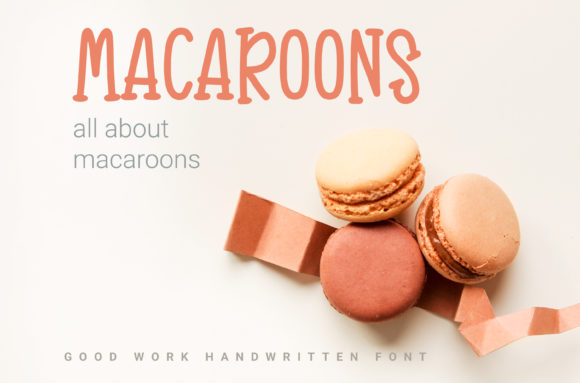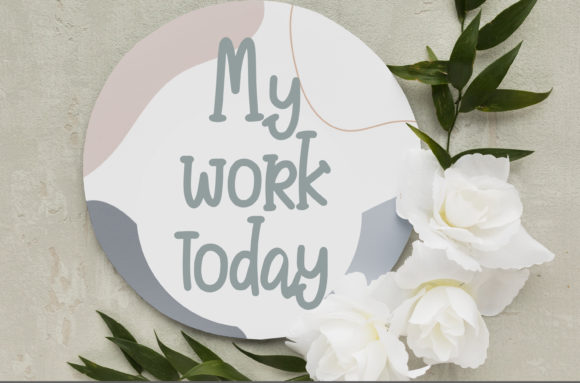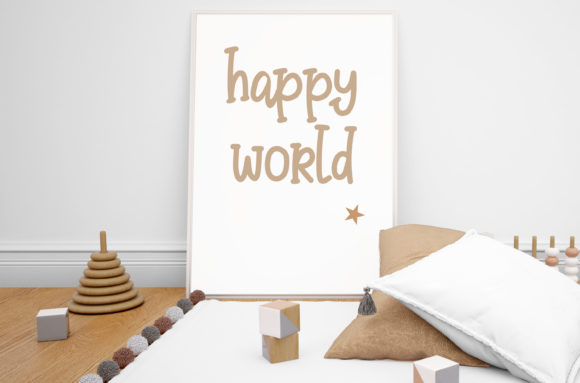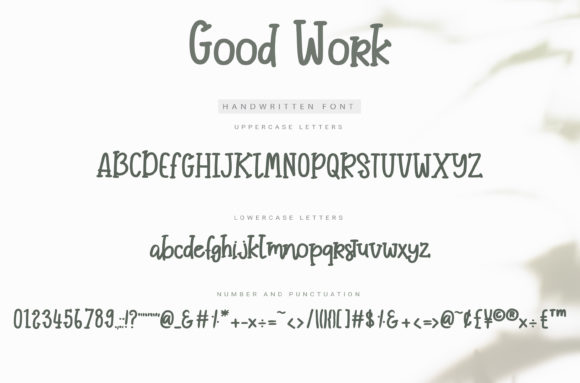
Introducing Good Work: The Ultimate Handwritten Font for Elegant Designs
In the world of typography, a good font can make all the difference in elevating your design to the next level. For those seeking a blend of elegance and modernity, look no further than Good Work – a truly outstanding handwritten font that embodies the perfect fusion of classic calligraphy and contemporary flair.
The Essence of Good Work
Good Work simplifies elegance into a single, remarkable font. Its classy calligraphic influences are evident, yet it feels refreshingly modern and approachable. This unique balance of sophistication and approachability makes Good Work an incredibly versatile font, suitable for a wide range of creative projects.
Unleash Your Creativity with Good Work
Whether you’re a designer, crafter, or simply someone who appreciates beautiful typography, Good Work is sure to inspire. Its elegant strokes and flowing lines make it perfect for:
- Letterheads and Titles: Add a touch of sophistication to your business correspondence or create eye-catching titles for your projects.
- Stationery: Elevate your stationery designs with a font that exudes refinement and poise.
- Branding and Packaging: Use Good Work to create a lasting impression with your brand’s identity and packaging designs.
- Digital and Print Media: Good Work’s versatility shines in both digital and print applications, ensuring your message looks great across all platforms.
What Makes Good Work Stand Out?
Several key features set Good Work apart from other handwritten fonts:
- Classy Calligraphic Influences: Good Work’s roots in traditional calligraphy are evident, giving it an air of sophistication.
- Contemporary and Fresh: Despite its classic influences, Good Work feels modern and current, ensuring your designs won’t look dated.
- Highly Versatile: Good Work’s adaptability makes it suitable for a broad spectrum of design applications.
- Elegant and Refined: The font’s flowing lines and elegant strokes make it perfect for designs that require a touch of luxury.
Tips for Using Good Work Effectively
To get the most out of Good Work, consider the following tips:
- Pair with Neutral Fonts: Combine Good Work with simpler fonts to create visual interest and hierarchy in your designs.
- Experiment with Sizes: Good Work’s versatility means it can shine at various sizes – from large headlines to smaller body text.
- Play with Colors: While Good Work looks great in traditional black and white, don’t be afraid to experiment with colors that match your brand’s aesthetic.
Good Work is more than just a font – it’s a design solution that brings elegance and sophistication to your projects. Its unique blend of classic calligraphy and modern flair makes it an indispensable tool for designers and crafters seeking to elevate their work. With Good Work, you can create stunning designs that leave a lasting impression.